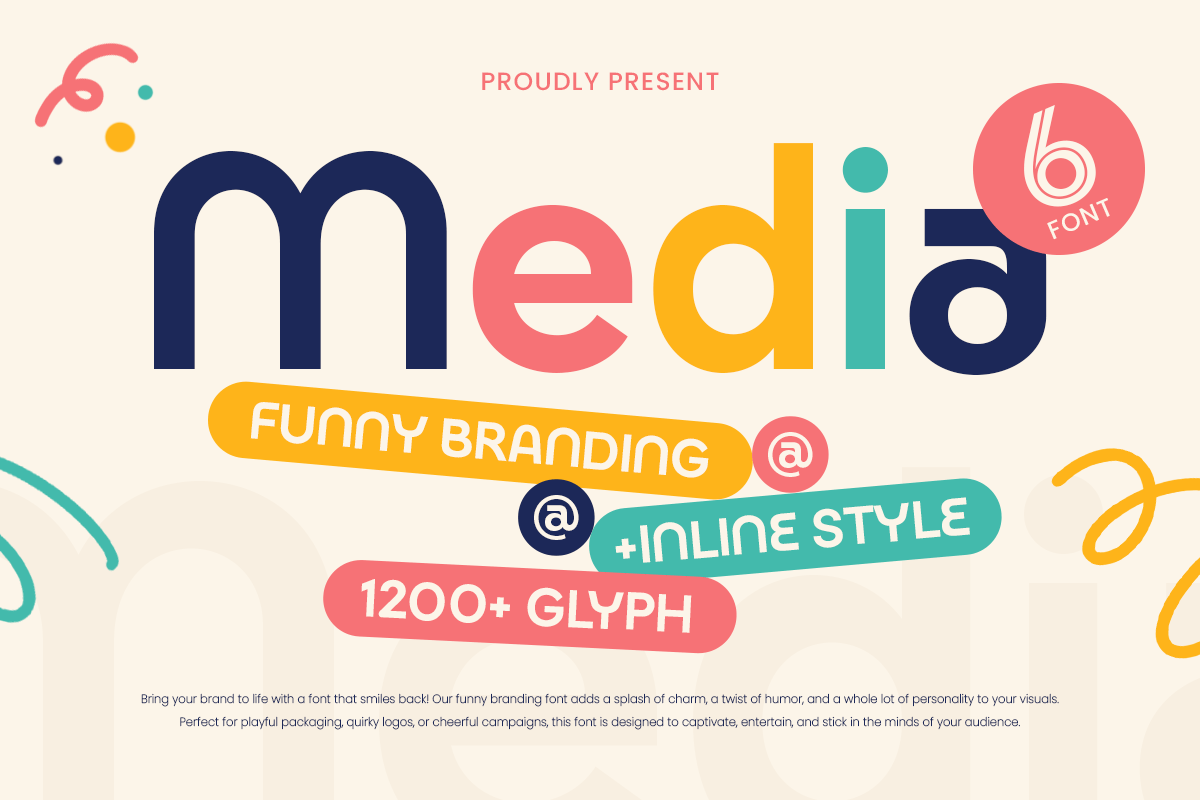
Media
-Funny Branding + Inline Style
Media - Funny Branding + Inline Style
Media is a fun and funky inline display font built to grab attention and spark excitement. With its bold structure and built-in inline style, Media adds a unique twist to titles, branding, packaging, and any design that needs to feel energetic and cheerful.
Its quirky personality makes it perfect for youth-focused brands, snack products, kids' books, posters, and campaigns that aim to entertain. Each letterform is crafted to bring boldness and rhythm—adding movement and joy to your typography.
Make your message pop with Media, the font that’s full of life and inline flavor.
Media – Funny Branding + Inline Style Font Features
• Bold inline character design
• Ideal for branding, packaging, kids, and fun projects
Bring joy and boldness to your brand voice with Media—where every line makes you smile.